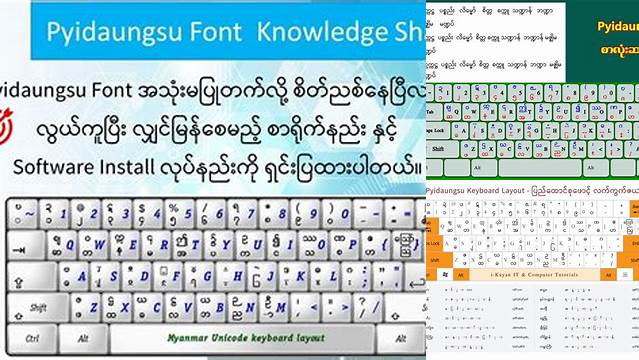
Why Pyidaungsu Font Matters
Before we jump into the how-to, let's quickly discuss why the Pyidaungsu font is so important. For those working with Burmese language content, having the right font is crucial for accurate representation and readability. Imagine trying to read a document where all the characters are garbled or displayed incorrectly – frustrating, right? The Pyidaungsu font ensures that Burmese script is displayed correctly on your computer, making it easier to create, read, and share documents in Burmese. This is especially important for official documents, academic papers, and any professional communication where clarity and accuracy are paramount. Moreover, using the correct font enhances the overall aesthetic appeal of your text. A well-rendered font can make your content look more polished and professional, which is particularly important for presentations, publications, and online content. In essence, the Pyidaungsu font is more than just a typeface; it's a tool that ensures your message is conveyed accurately and effectively.
Typing with Pyidaungsu Font: Tips and Tricks
Okay, now that you've successfully installed the font, let's talk about typing with Pyidaungsu font! Just installing the font isn't enough; you need to know how to actually use it. Here's where things can get a little tricky because you'll likely need a Burmese keyboard layout installed on your computer. Think of it this way: the font is like the style of handwriting, and the keyboard layout is how you tell your computer which letters to write. Windows and other operating systems usually have options to add different keyboard layouts. Go to your keyboard settings (usually found in the Control Panel or System Preferences) and look for options to add a new keyboard layout. Search for "Burmese" or "Myanmar" – you should find a few different layouts to choose from. Select one and add it to your list of available keyboards. Once you've added the keyboard layout, you'll need to switch to it when you want to type in Burmese. Usually, there's an icon in your system tray (the bottom right corner of your screen) that lets you switch between different keyboard layouts. Click on that icon and select the Burmese keyboard you just added. Now, when you type, the characters will correspond to the Burmese layout. It might take some practice to get used to the new layout, so don't get discouraged if you're not immediately fluent. There are plenty of online resources and typing tutorials that can help you learn the layout and improve your typing speed. Practice makes perfect, so keep at it, and you'll be typing in Pyidaungsu font like a pro in no time!